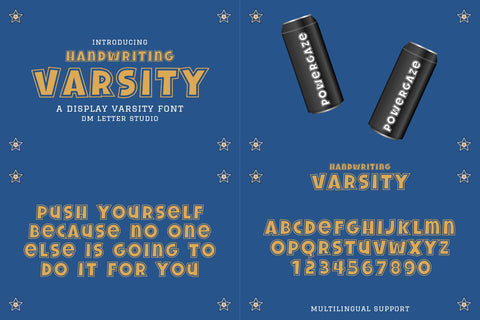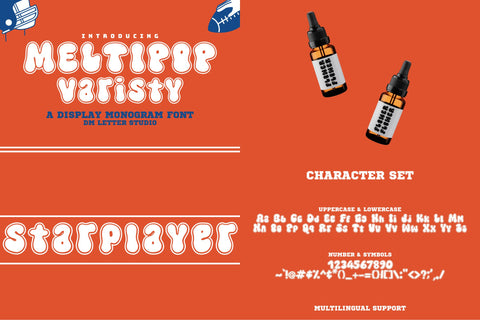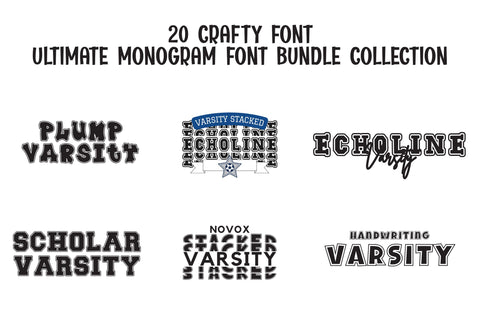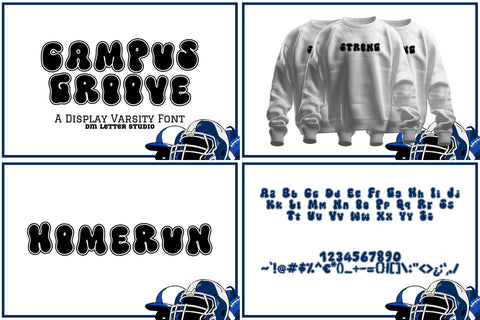
Back to School: Varsity Font Bundle
Back to School: Varsity Font Bundle is a complete toolkit for bold collegiate designs, school spirit graphics, and sporty merch. This bundle mixes classic varsity blocks, retro styles, outlines, stacked options, and monogram initials, so you can build a full collection from one download. Because you have both headline fonts and badge-ready monograms, you can go from poster design to hoodie logo to sticker sheet fast. Use it for school events, team branding, club merch, senior designs, year graphics, campus promos, stickers, posters, and social templates. As a result, your listings look stronger, more consistent, and easier to scale.
Fonts included in this bundle
- Varsity Collage
- Varsity College
- Retro Varsity
- Quirky Varsity
- Handwriting Varsity
- Novox Varsity
- Novox Varsity Monogram
- Novox Varsity Stacked Monogram
- Echoline Varsity
- Echoline Varsity Stacked
- Blocksmith Varsity
- Blocksmith Outline
- Blocksmith Stacked
- Scholar Block Outline
- Scholar Stacked
- Scholar Varsity
- Hell Forge College
- Meltipop Varsity
- Campus Groove
- Plump Varsity
First, you get variety that still feels on-theme. You can cover clean college branding, retro sports posters, playful school projects, and premium stacked badge designs. Next, outline and stacked fonts make it easy to add depth without extra effects. Then the monogram options help you create initials for teams, clubs, and personalization listings. Moreover, everything works smoothly in Canva, Photoshop, and Illustrator, so you can produce templates, merch mockups, and sticker packs quickly. Therefore, this bundle is perfect for back-to-school season, sports season, and year-round campus-style products.
Fast layouts that look like real varsity design
Start with a bold headline using Varsity College, Blocksmith Varsity, or Scholar Varsity. After that, add depth using an outline or stacked style like Blocksmith Outline, Blocksmith Stacked, or Echoline Varsity Stacked. Because varsity designs love structure, use arches, shields, circles, and ribbon banners. In addition, drop in initials with Novox Varsity Monogram or Novox Varsity Stacked Monogram for badge-ready marks. Finally, lock in classic palettes like navy & cream, red & white, forest & gold, or black & silver to keep everything consistent.
Creative uses and quick wins
- Team logos, jersey titles, and school spirit badges
- Back-to-school posters, event banners, and pep rally promos
- Club merch: tees, hoodies, totes, and caps
- Senior year designs, class numbers, and graduation graphics
- Sticker packs, labels, and locker decor printables
- Social posts, reels covers, and campus promo templates
- Outline, stacked, and monogram styles for quick depth and personalization
- Clean curves for print, cutting, and high-res exports
Design tips for best results
Keep phrases short so the varsity style hits harder. Also, increase tracking slightly for all-caps headlines to keep spacing clean. For small stickers, choose the solid styles first, then use outlines and stacked effects at larger sizes. If you’re cutting vinyl, go bigger so edges stay crisp. Finally, export at 300 DPI for print and at 2× size for web so everything stays sharp.